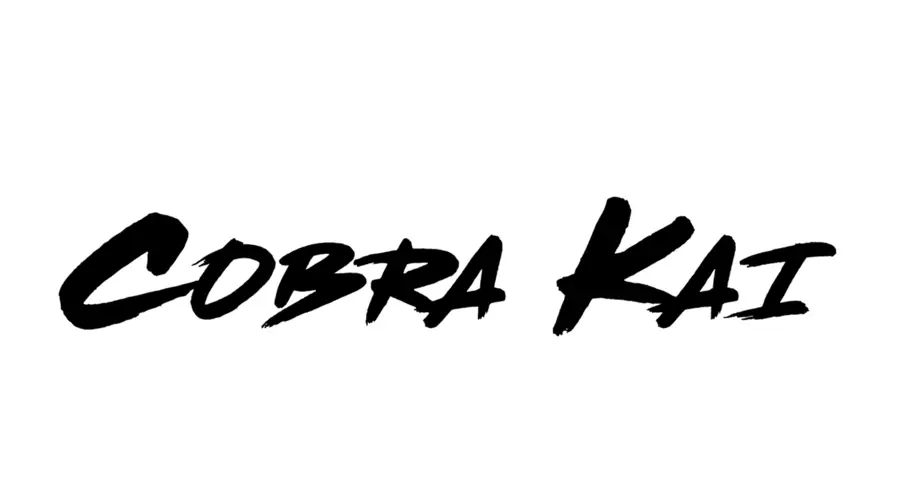
The Cobra Kai font is a bold, brush-style typeface that captures the gritty and rebellious vibe of the popular American martial arts comedy-drama television series, Cobra Kai. This font is prominently used in the show’s logo and promotional materials, giving it a distinctive and edgy look. While there isn’t an official font released specifically for Cobra Kai, the design closely resembles the Dead Stock font by Canadian foundry BLKBK. This hand-brushed, 1980s pulp signage style is often used as a replica for the logo.
If you’re looking to recreate the Cobra Kai style or find something similar, here are the best alternatives:
Dead Stock by BLKBK – This is the closest replica font used in the Cobra Kai logo. It features a rough, hand-brushed style that perfectly matches the show’s aesthetic.
Peanut by fgstudios – Another great alternative, this font offers a similar brush script style with a slightly softer touch.
The subtitle “DOJO RISING” in Cobra Kai 2 uses a thick, slanted sans-serif that looks just like Futura Extra Black Condensed Italic.
If you want the same style, grab that font and type your own text, no extra tweaks needed.
These fonts are ideal for designs that require a bold, dynamic, and slightly rugged look, much like the Cobra Kai branding.